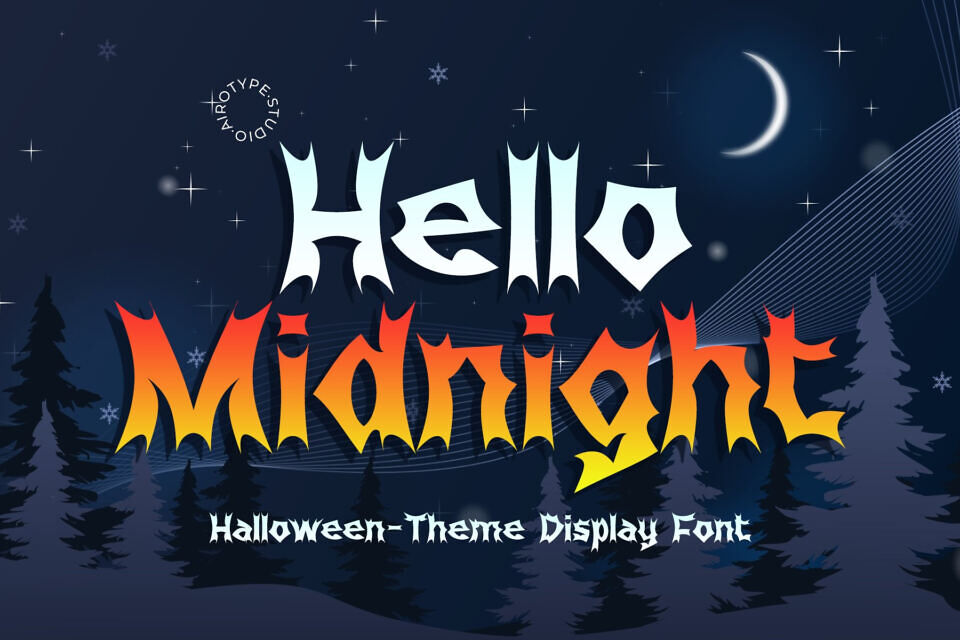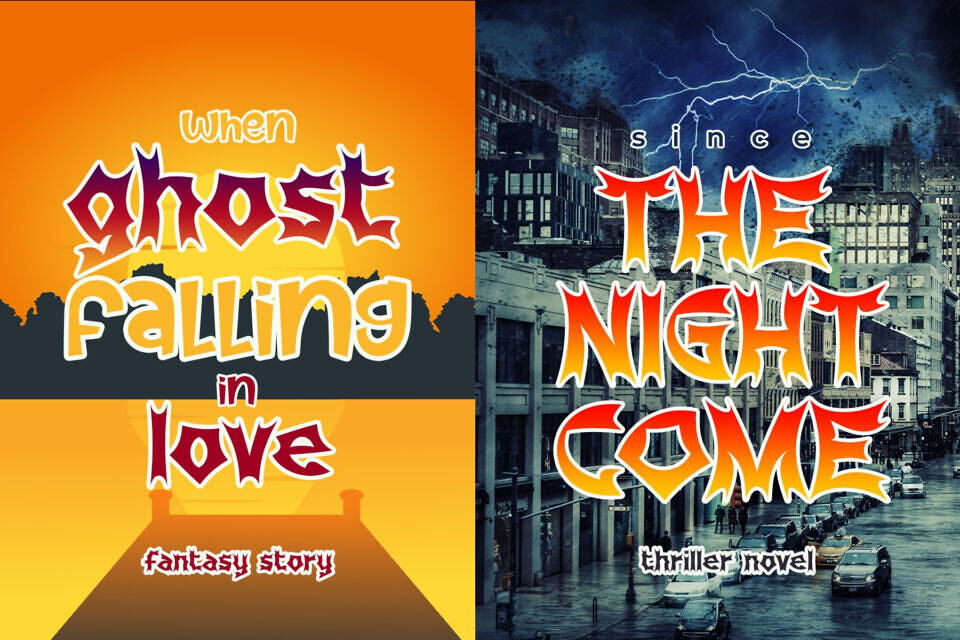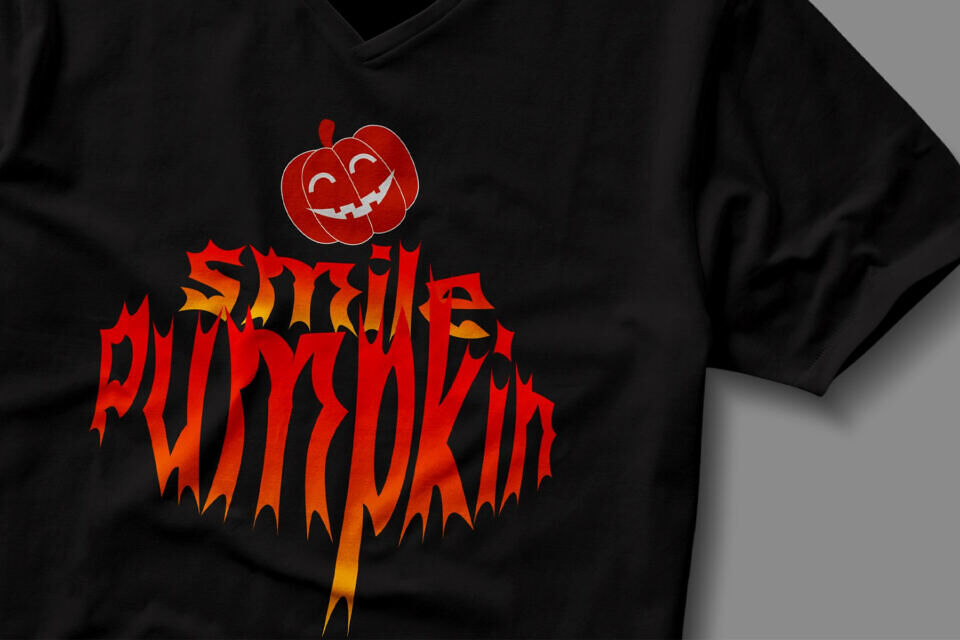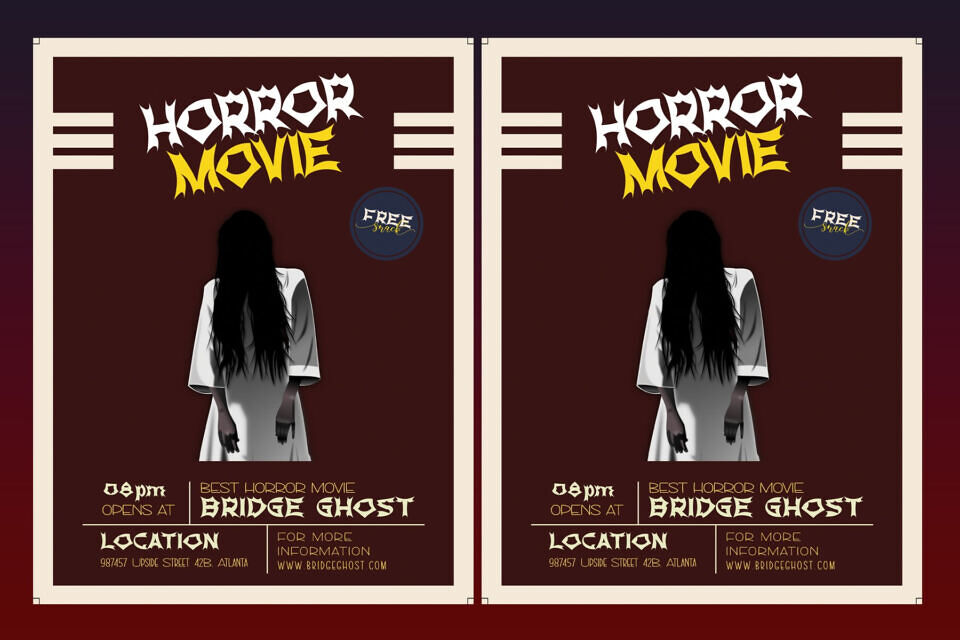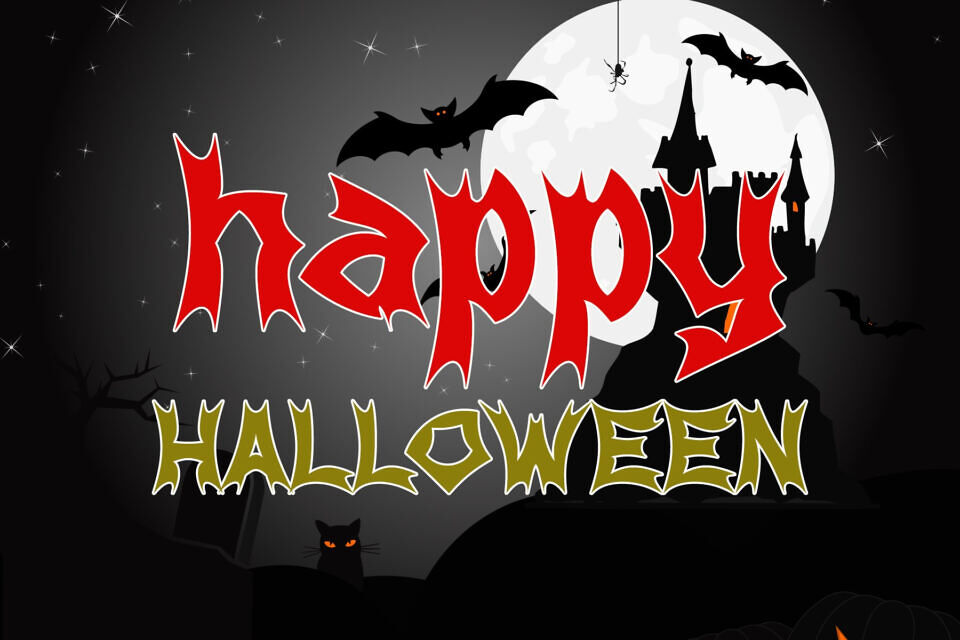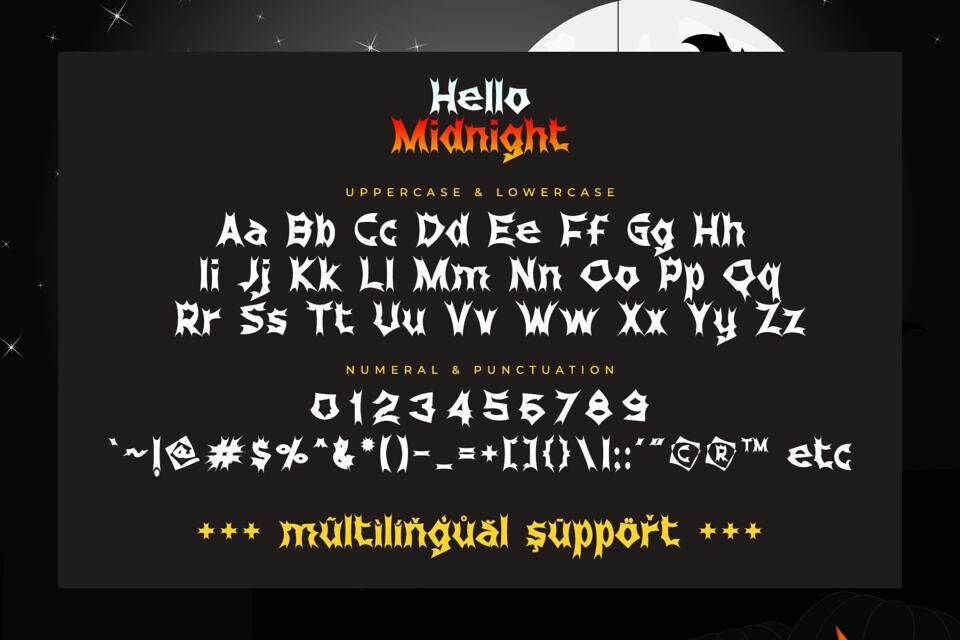
Hello Midnight Font
Hello Midnight is fun, playful, and spooky display font with and horror theme. Hello Midnight is so suitable for your mystery and scary theme design, such as halloween, october, ghost theme, and many more.